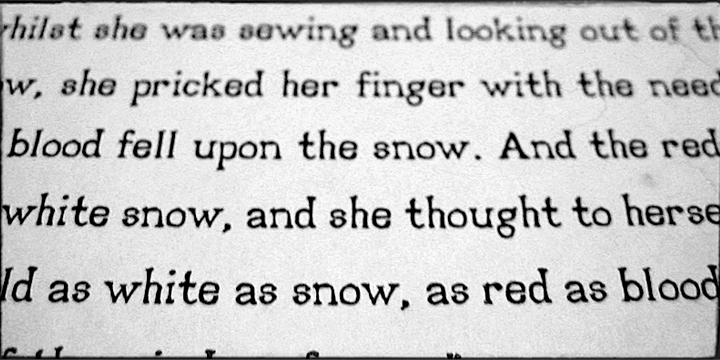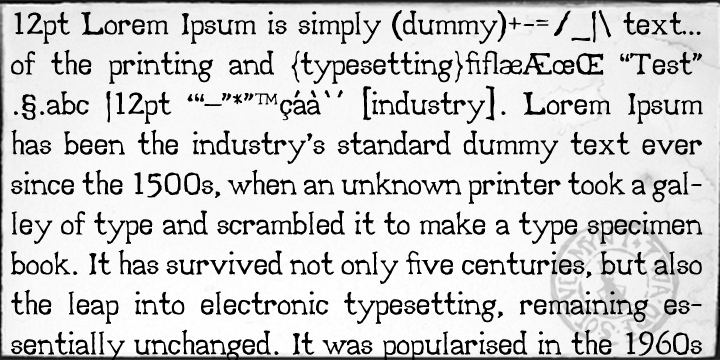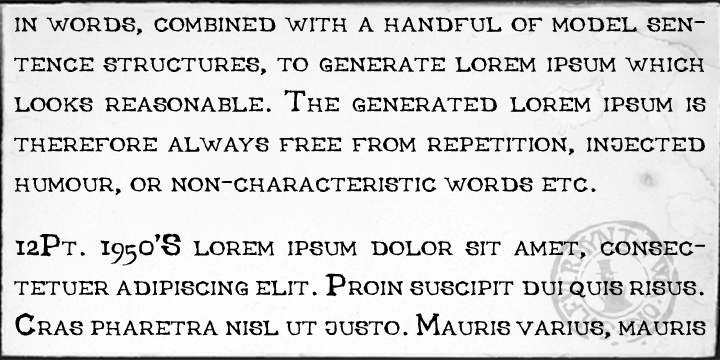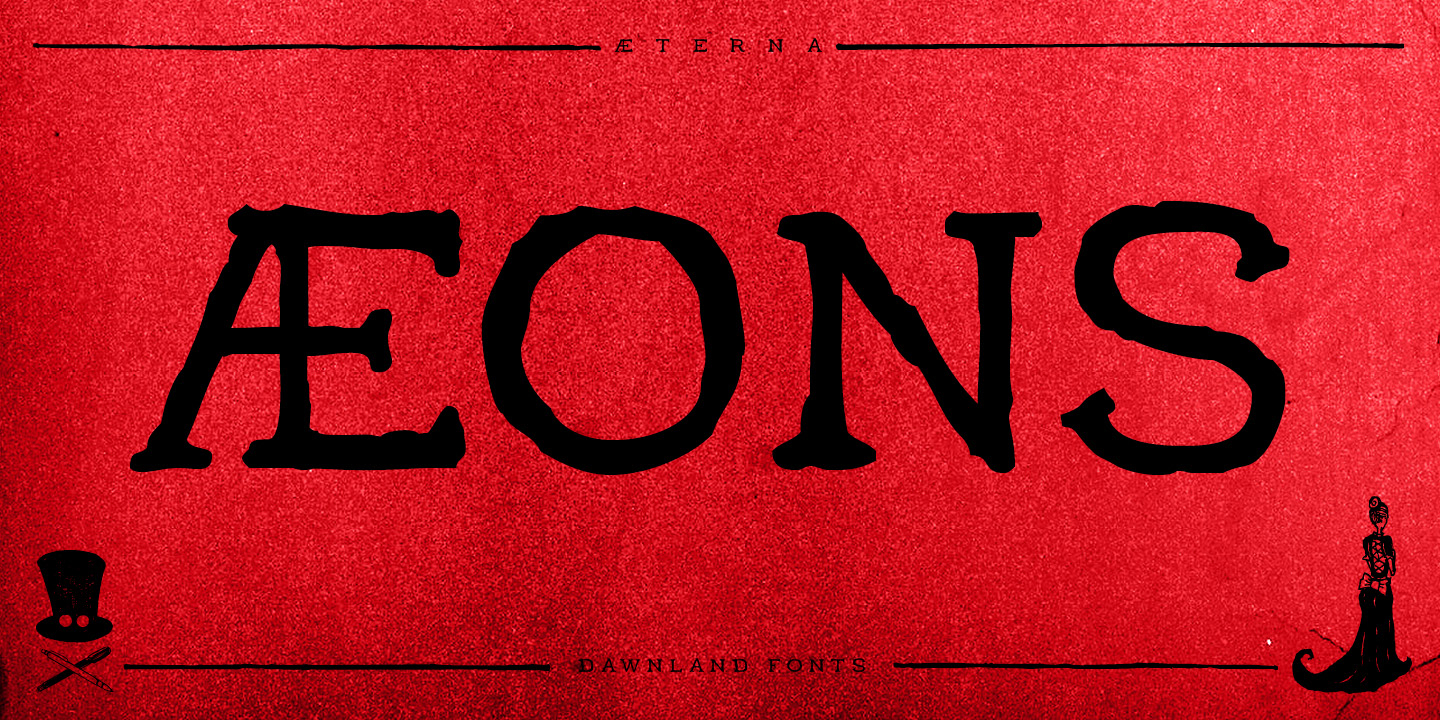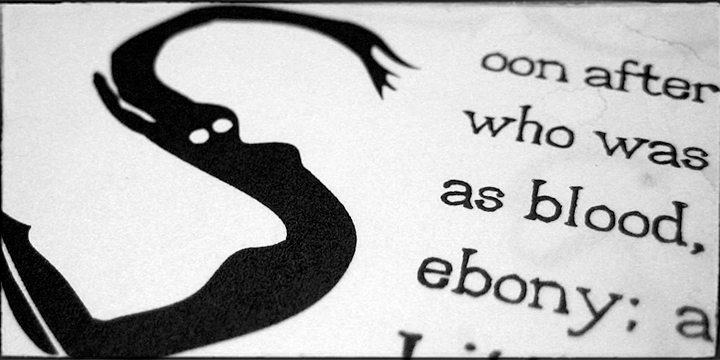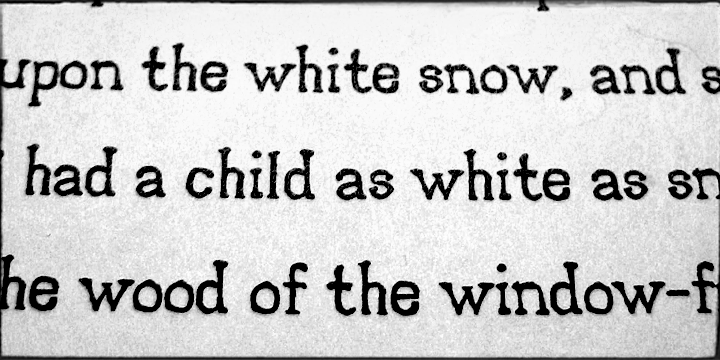
Aeterna is a grunge and display serif font family. This typeface has two styles and was published by Dawnland.
Hand drawn, sketchy antiqua that come in two font variants:
Regular: Upper- and lowercase letters (A-Z + swedish characters Å Ä Ö), numbers, special characters, glyphs and ligatures.
Small caps: Upper- and small caps letters (A-Z + swedish characters Å Ä Ö), old style figures, special characters, glyphs and ligatures.